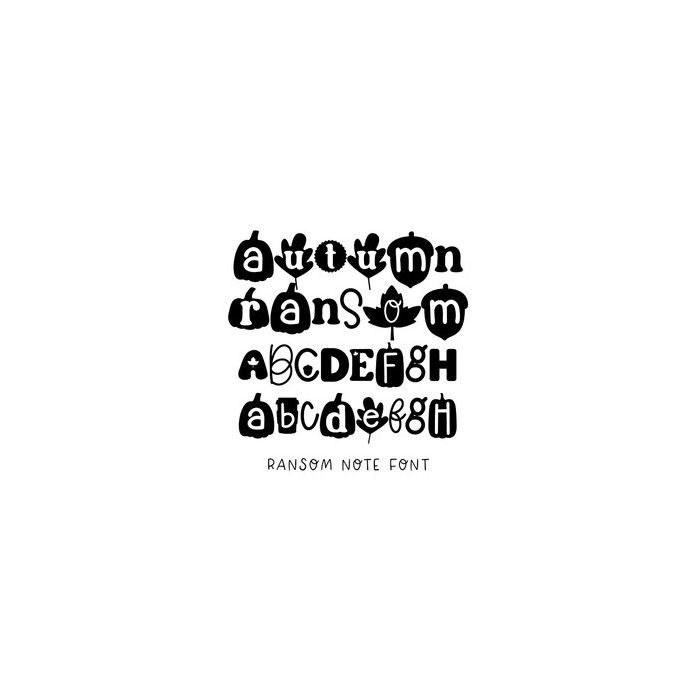
BFC Autumn Ransom Fall Single Layer Ransom Letter Font
Autumn Ransom (Black and white version) is a single-layer, regular OTF font in ransom letter style.